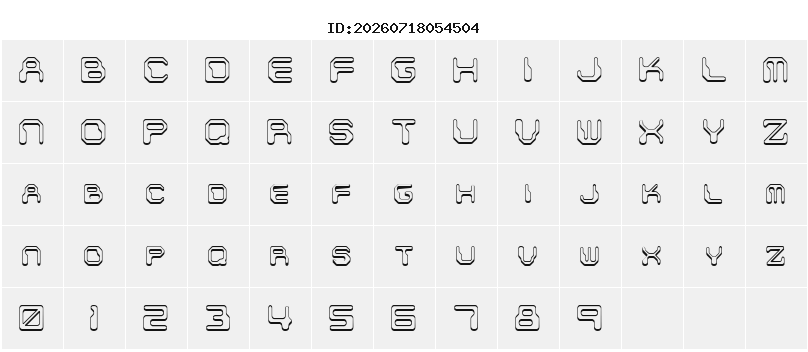
Chintzy CPU Shadow (BRK) Preview
• Font Name: Chintzy CPU Shadow (BRK)
• Full Font Name: Chintzy CPU Shadow (BRK)
About Chintzy CPU Shadow (BRK).ttf
Chintzy CPU Shadow (BRK).ttf is a modern, elegant sans-serif font designed for ultimate readability and visual harmony. Perfect for branding, headlines, web design, and print materials.